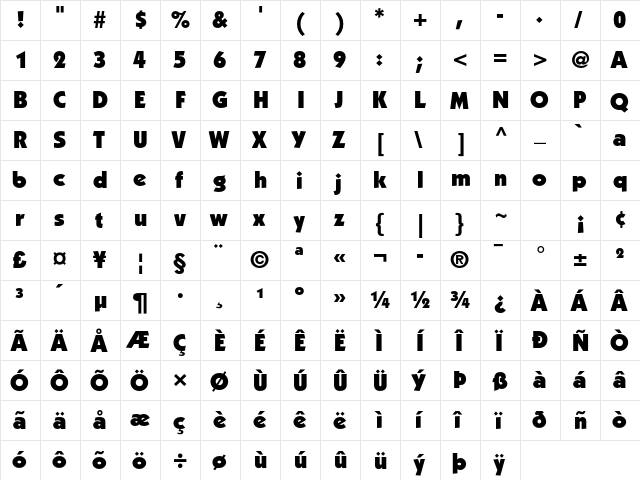
ITC Kabel Std Ultra
| Designer | Rudolf Koch |
Design Context for ITC Kabel Std Typeface
ITC Kabel Std is a composed and adaptable typeface that performs quietly and consistently across a wide range of design contexts.